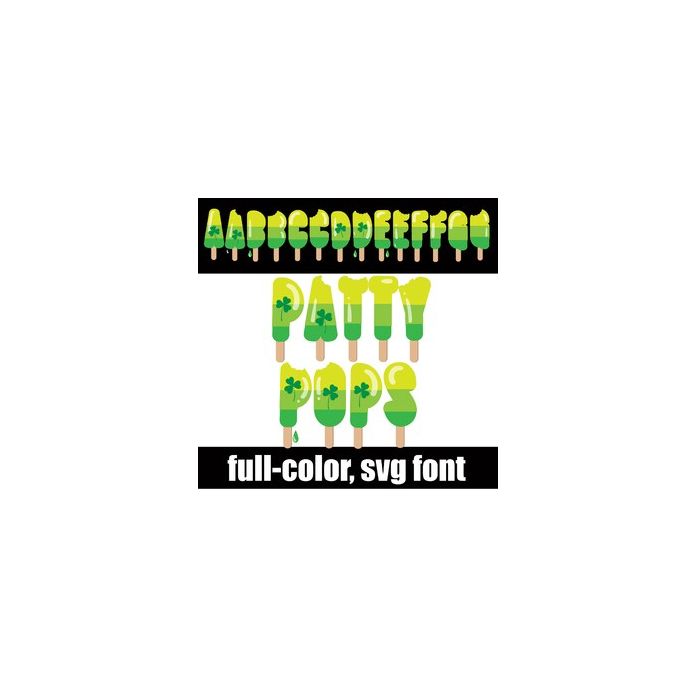
This full-color font features a tri-color, green popsicle with a few clovers throughout. This font works best for titles, displays, posters and more. Please note color fonts will show as black in non compatible programs. This font type is compatible with Silhouette Studio.